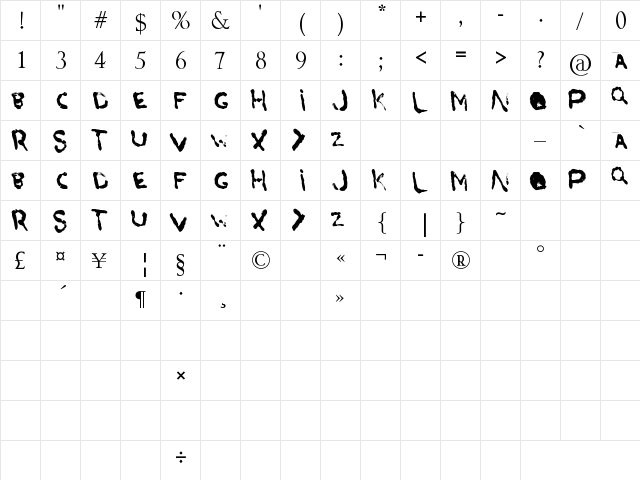
Arslan's Blood Regular
Design Context for Arslan's Blood Typeface
Arslan's Blood leans into the macabre with letterforms designed to disturb and intrigue in equal measure.
Ideal for Halloween projects, horror film titles, haunted house signage, and dark editorial design.
Font Pairing: Pair with a clean neutral sans-serif for body copy to let Arslan's Blood's character lead without overwhelming the composition.
Pro Tip: Arslan's Blood works best as a headline or focal element. Pair it against plain, neutral body text to amplify the contrast.